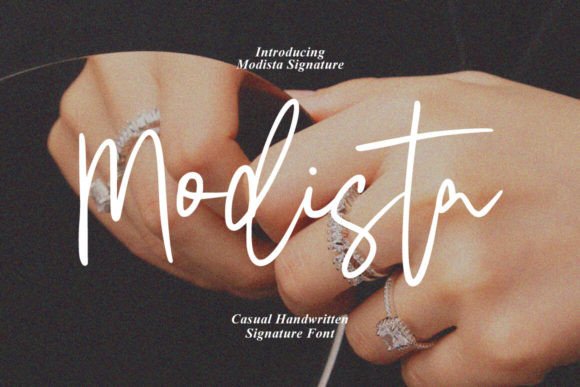
Introducing Modista Font, a captivating script font family that exudes elegance and charm. Handcrafted with meticulous attention to detail, Modista Signature boasts a distinctive handmade signature style, graceful decorative characters, and a vivacious dancing baseline that brings your designs to life.
This exquisite font is a visual masterpiece, transforming your words into works of art. It's the perfect choice for crafting stunning invitations, heartfelt greeting cards, captivating branding materials, professional business cards, inspiring quotes, and eye-catching posters. Unleash your creativity and let Modista Signature elevate your designs to new heights.
Dive into the depths of Modista Signature's diverse collection of over 200 glyphs, offering a treasure trove of design possibilities. Experiment with the OpenType features, unlocking a world of swashes, stylistic sets, stylistic alternates, and ligatures. These features are compatible with OpenType savvy programs like Adobe Illustrator, Adobe InDesign, Adobe Photoshop, Corel Draw X version, and Microsoft Word, ensuring seamless integration into your design workflow.